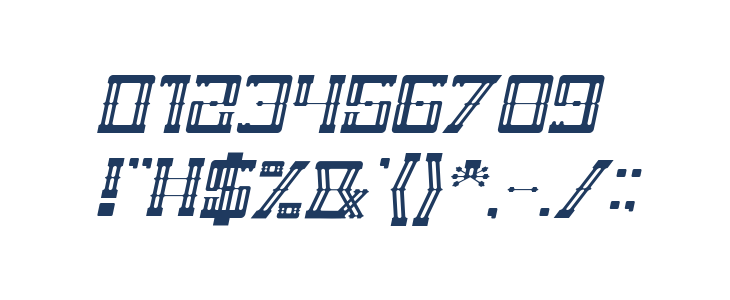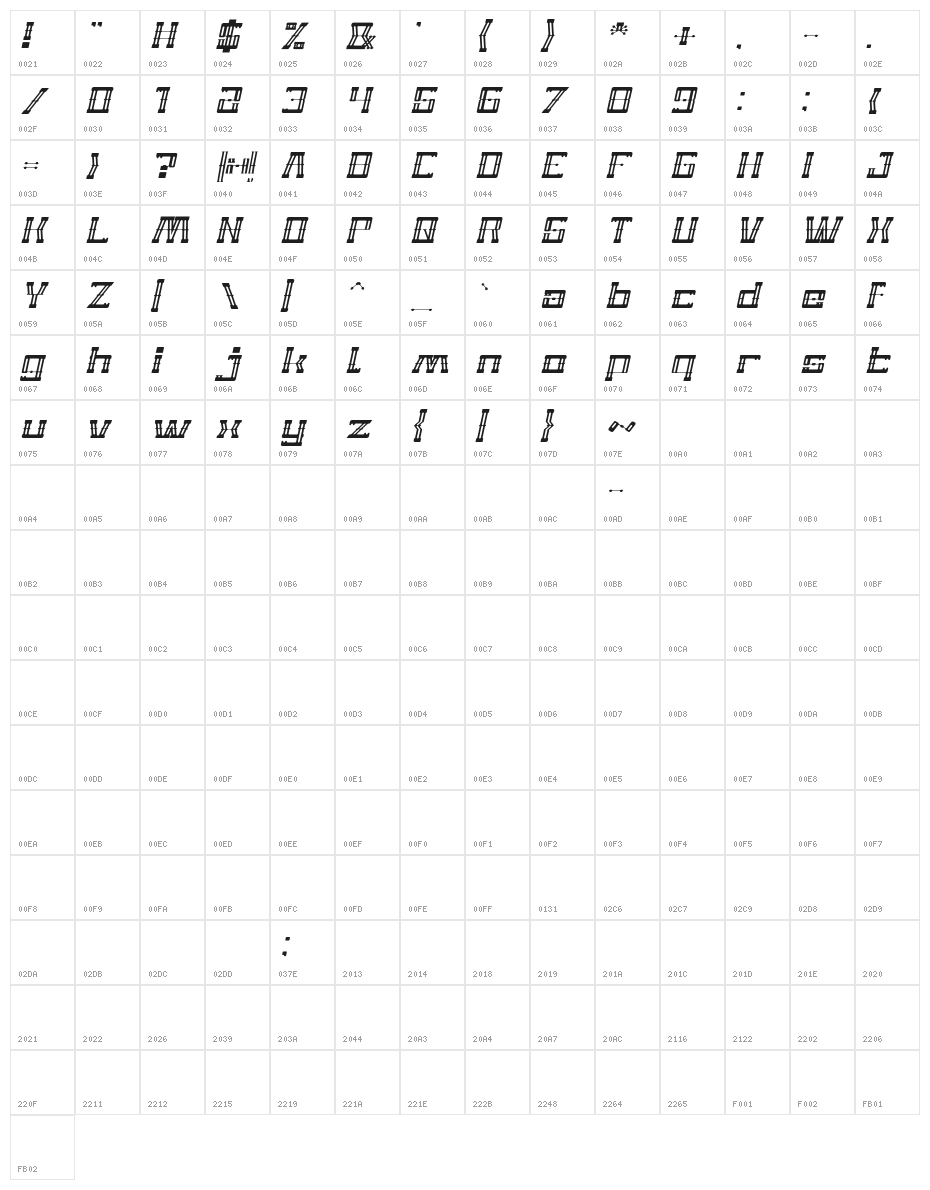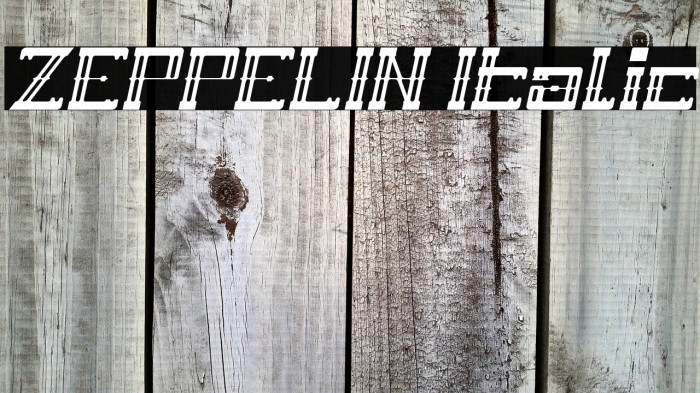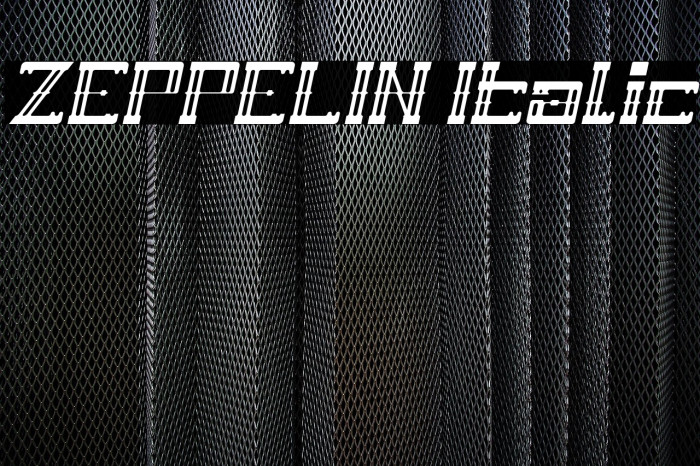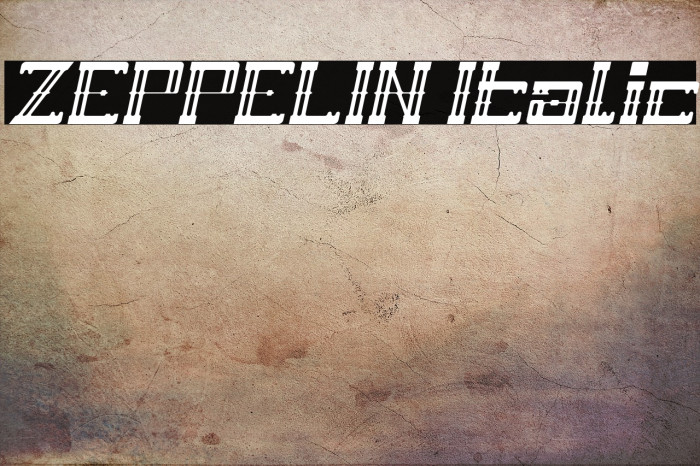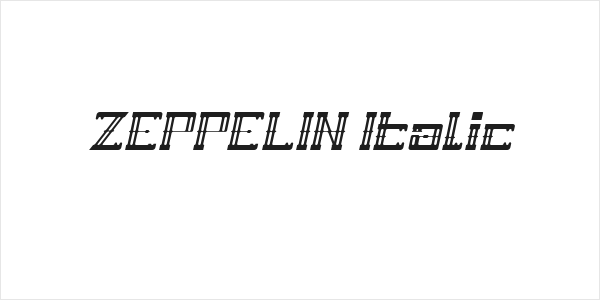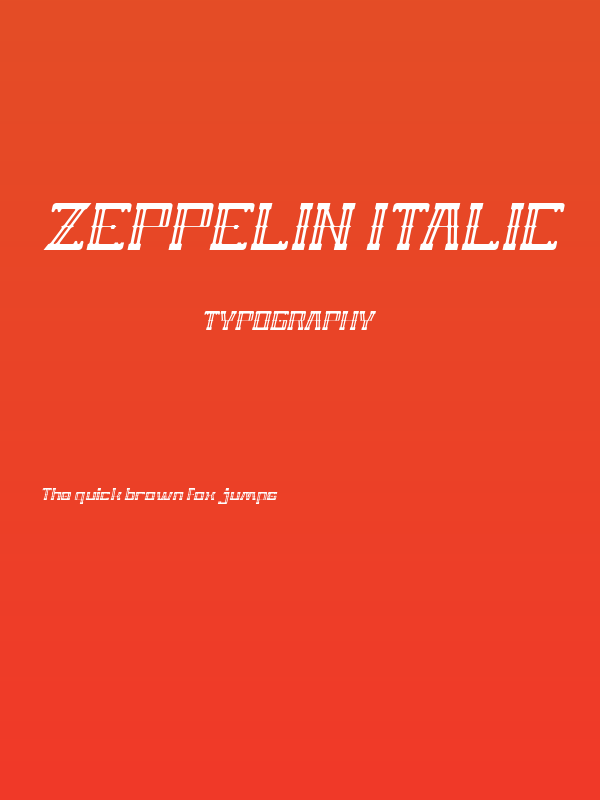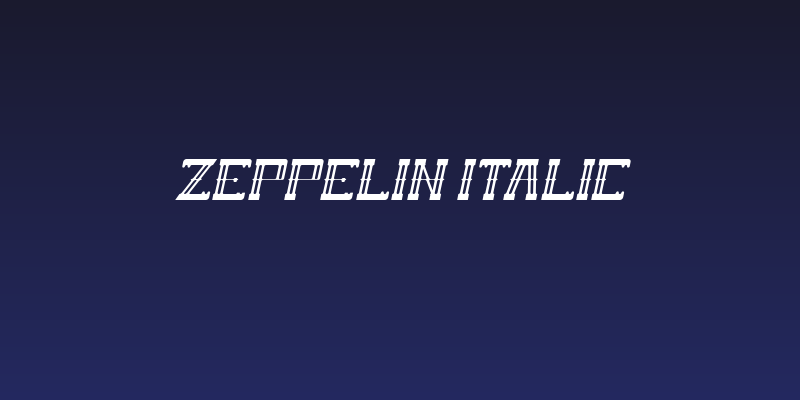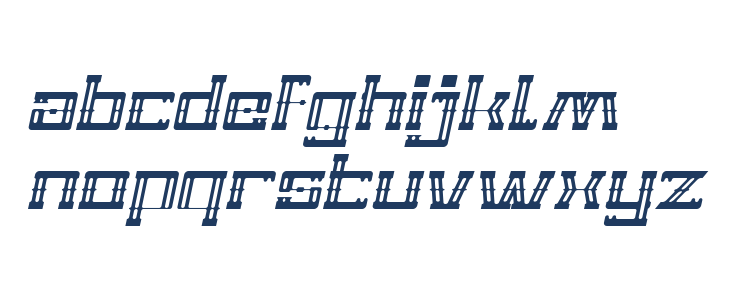
ZEPPELIN Italic Font
ZEPPELIN Italic Description
This font exhibits a bold, industrial design with a distinct italic slant, giving it a dynamic and forward-moving appearance. The characters are constructed with a combination of solid lines and segmented strokes, creating a mechanical and futuristic aesthetic. The uppercase and lowercase letters maintain a consistent style, with angular edges and a uniform height that enhances readability. The numerals and special characters follow the same design principles, ensuring a cohesive look across all glyphs. This font's unique style makes it stand out, ideal for projects that require a modern and edgy touch.
| Overall Style | Futuristic, Industrial |
| Proposed Projects | Ideal for technology branding, sci-fi posters, video game titles, and modern advertising. |